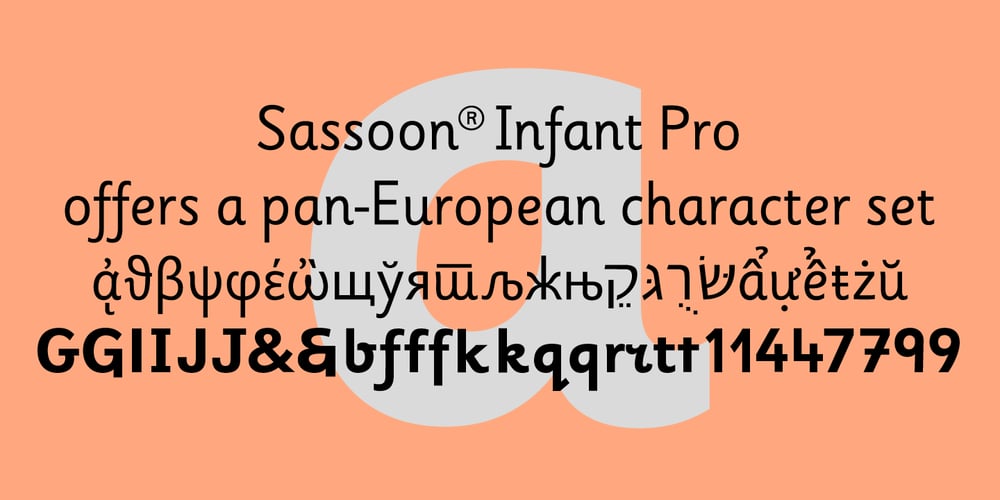
Sassoon Infant Pro Font Family was designed by Rosemary Sassoon and published by Sassoon-Williams. Sassoon Infant Pro contains 2 styles and family package options. An upright typeface family developed to meet the demand for letters to produce pupil material for handwriting as well as for reading. Upright letters with extended ascenders and descenders are ideal on screen. They facilitate word recognition. The exit strokes link words together visually, and in handwriting they lead to spontaneous joins along the baseline leading logically to a joined-up hand. Teachers can print desk strips, charts of letter families and alphabet friezes, as well as consistent material across the curriculum. Together these typefaces provide a valuable resource for special needs teachers. Typefaces developed to meet demand for letters that can be used to produce pupil material for reading as well as handwriting. Regular and Bold typefaces covering pan-European languages: 9 Latin, 6 Cyrillic, Greek, Turkish, 13 Baltic, 8 Rusyn, 6 Nordic, Vietnamese. How to access Stylistic Sets of alternative letters in these fonts Cyrillic Stylistic Sets examples Greek Stylistic Sets examples Vietnamese Stylistic Sets examples